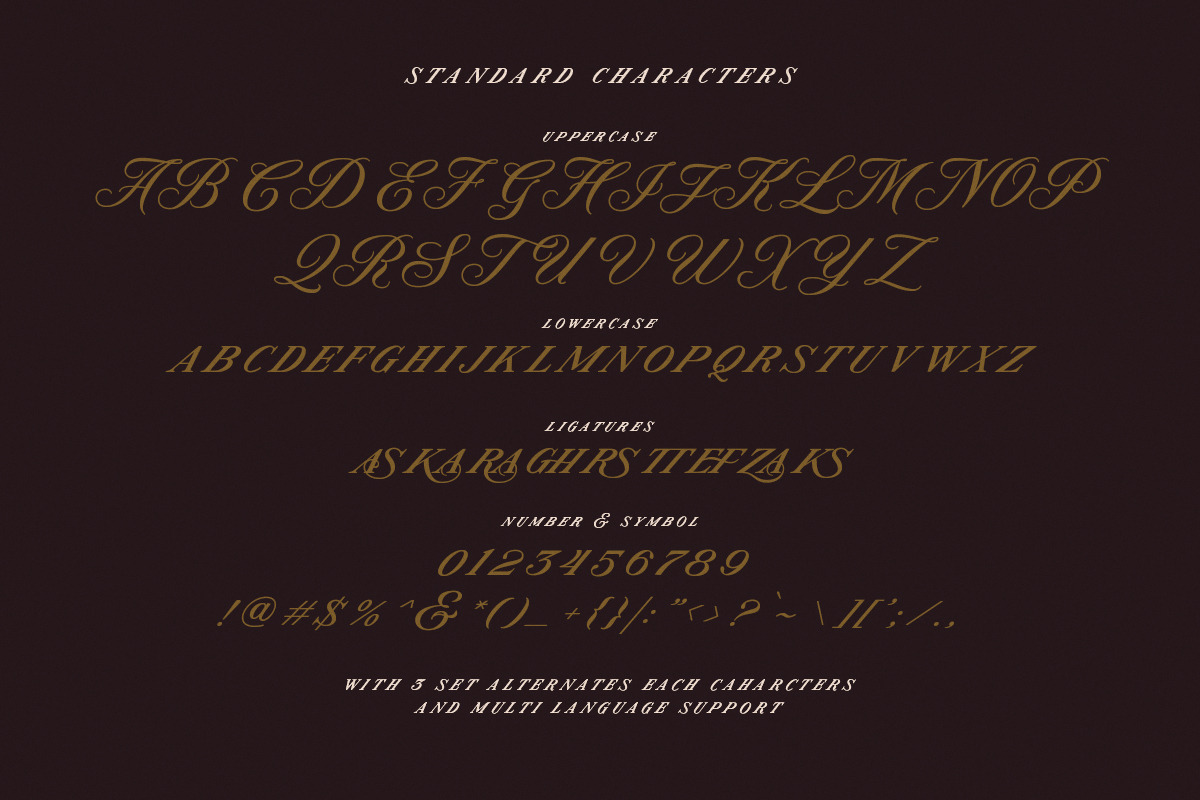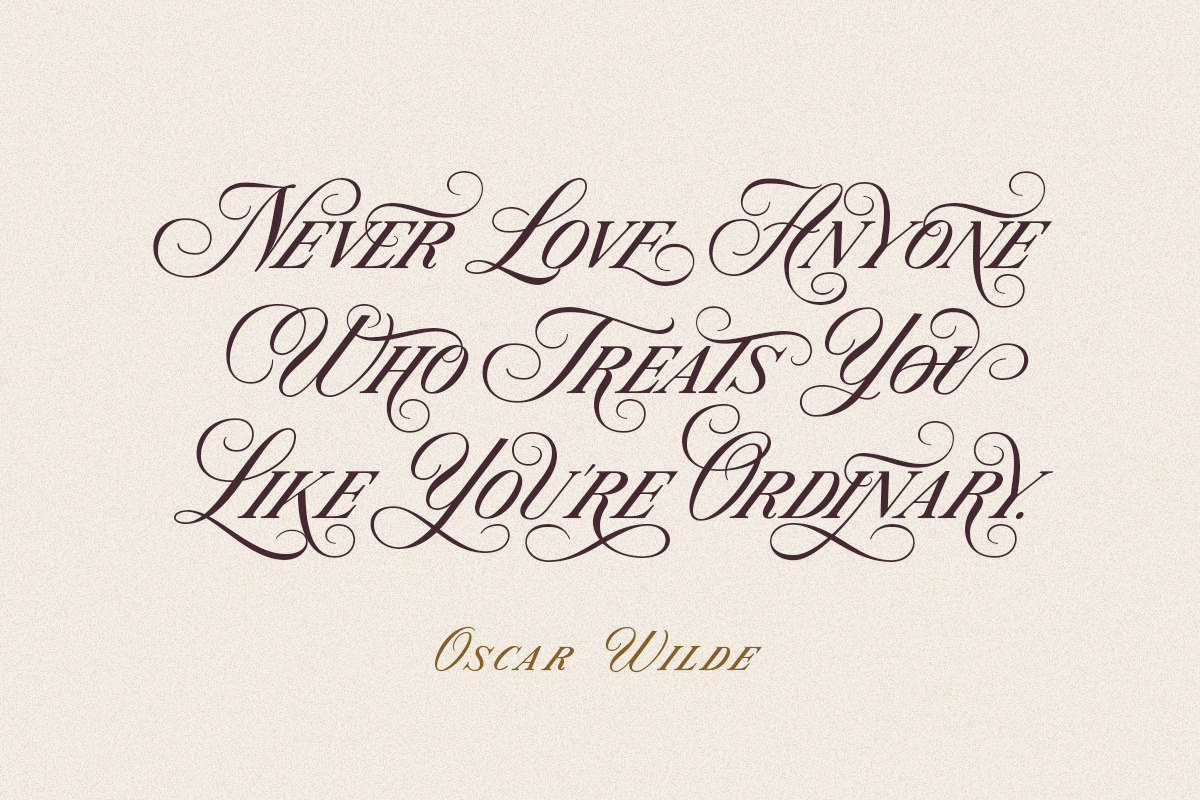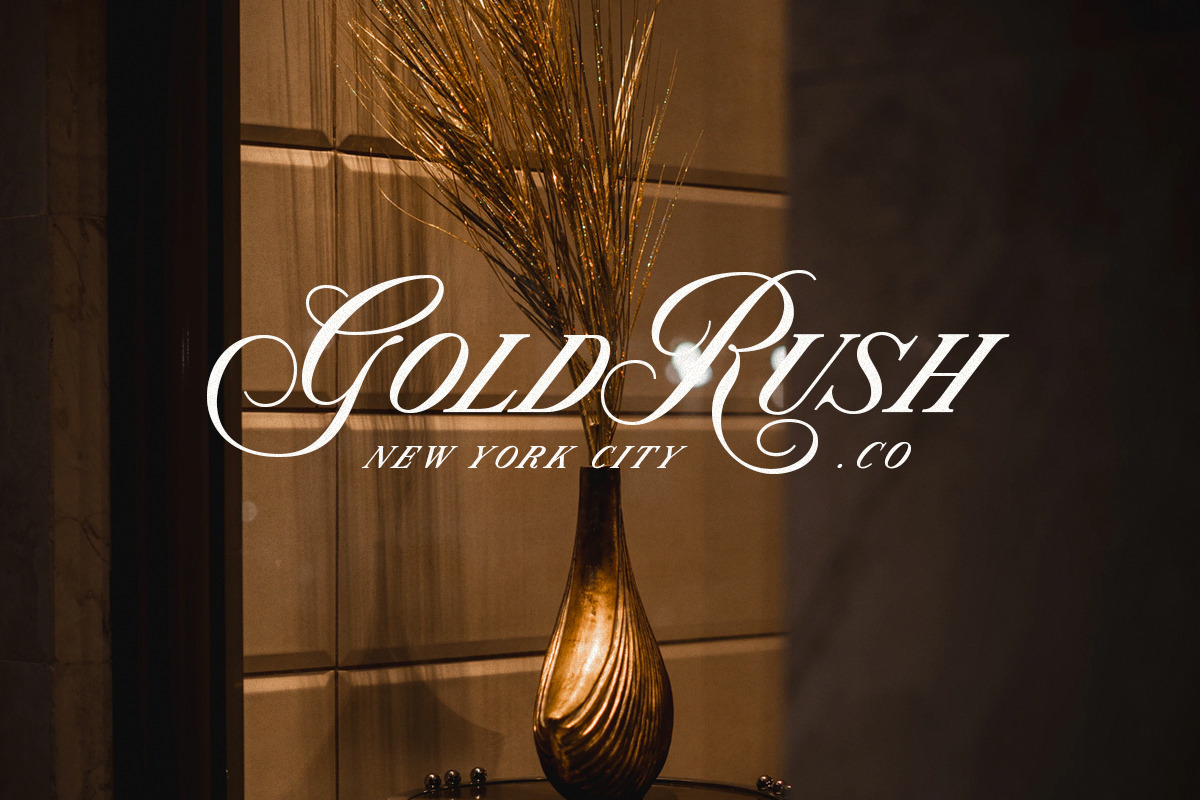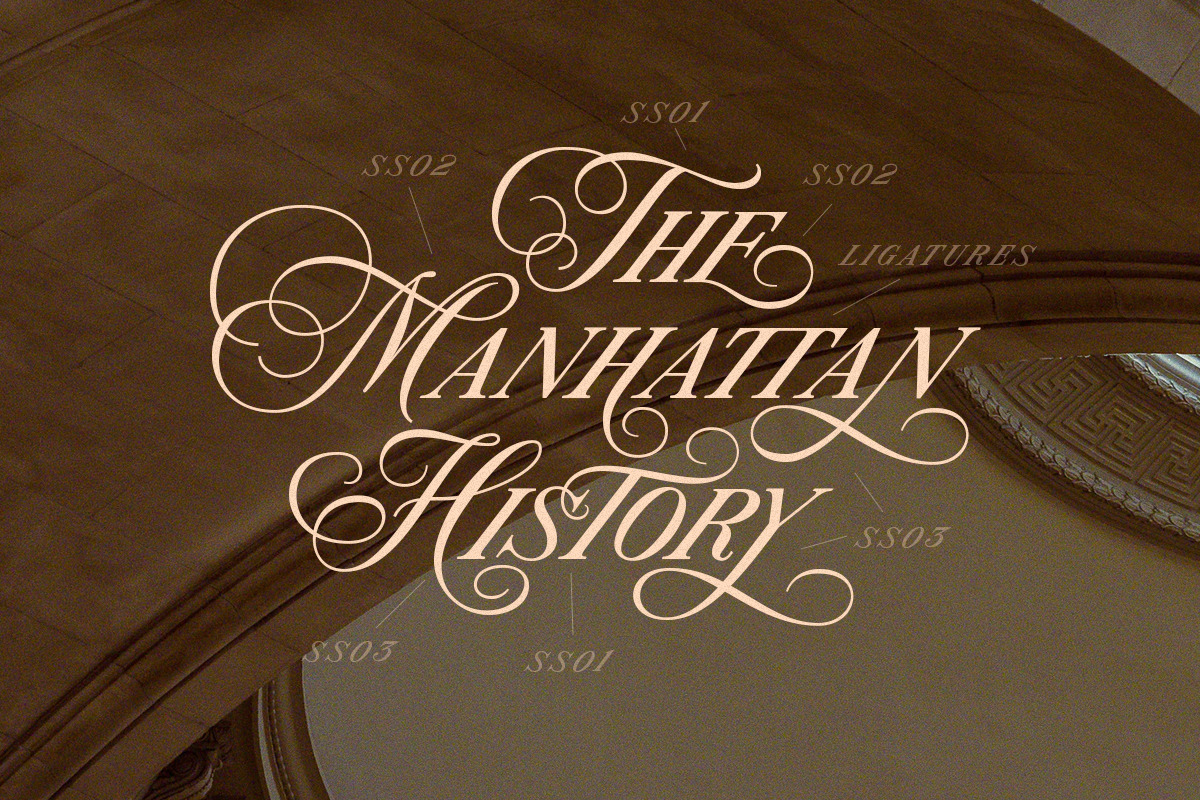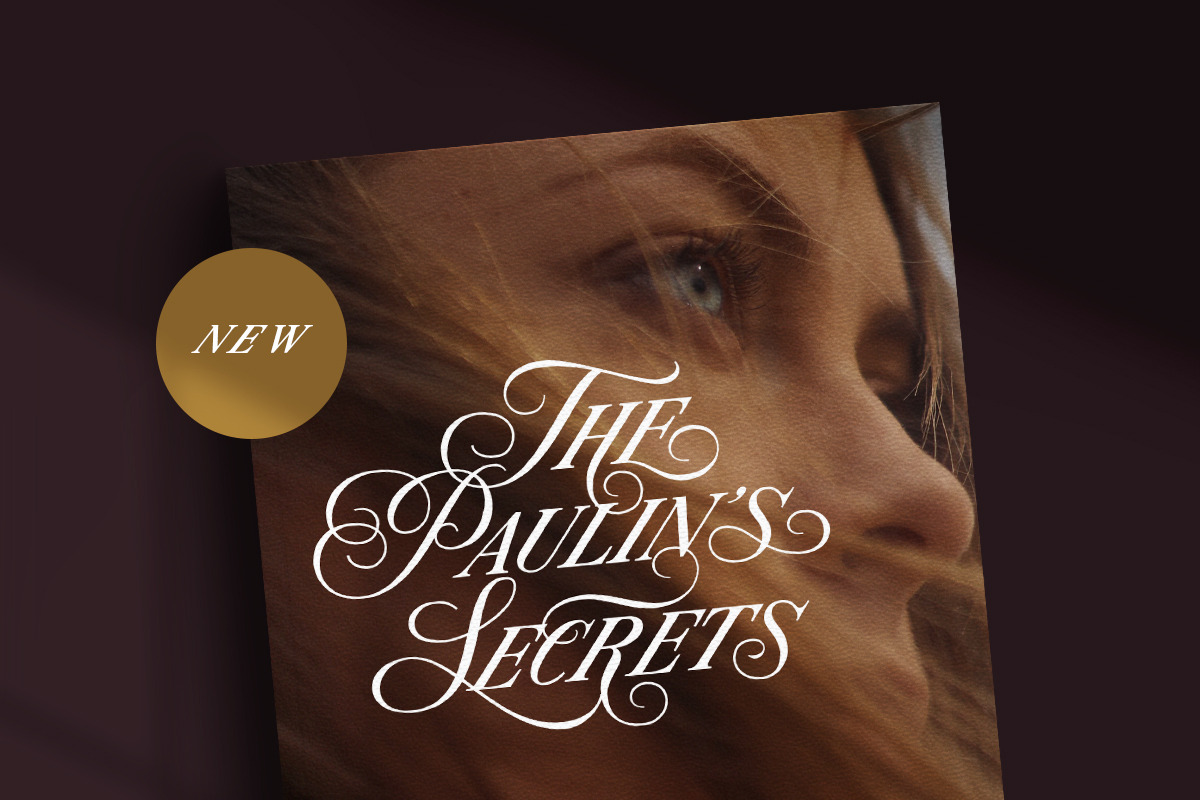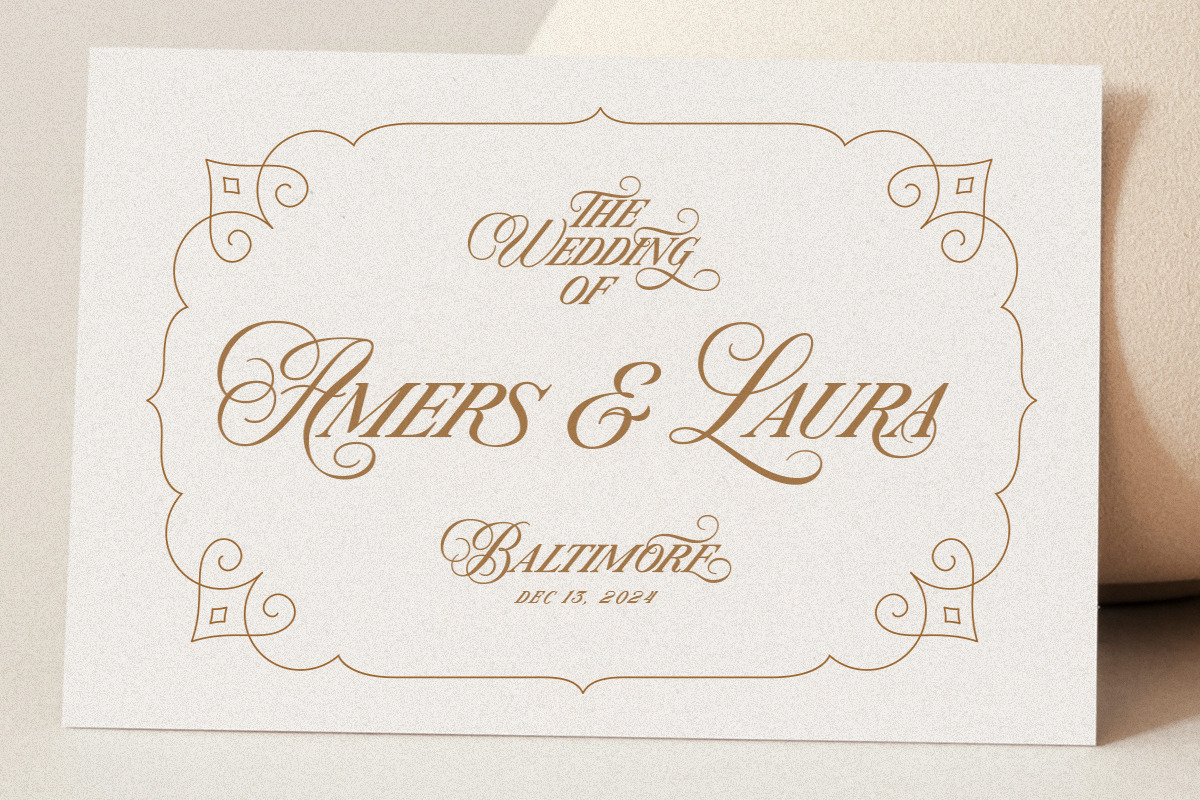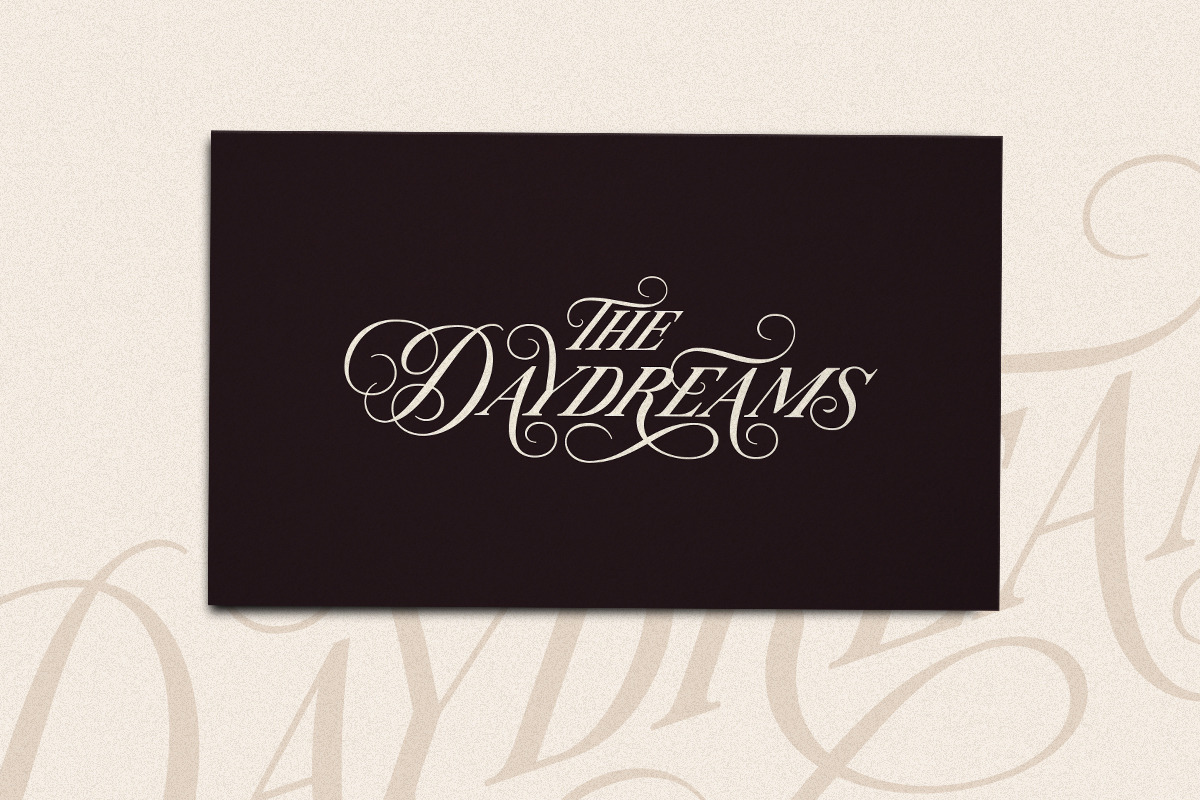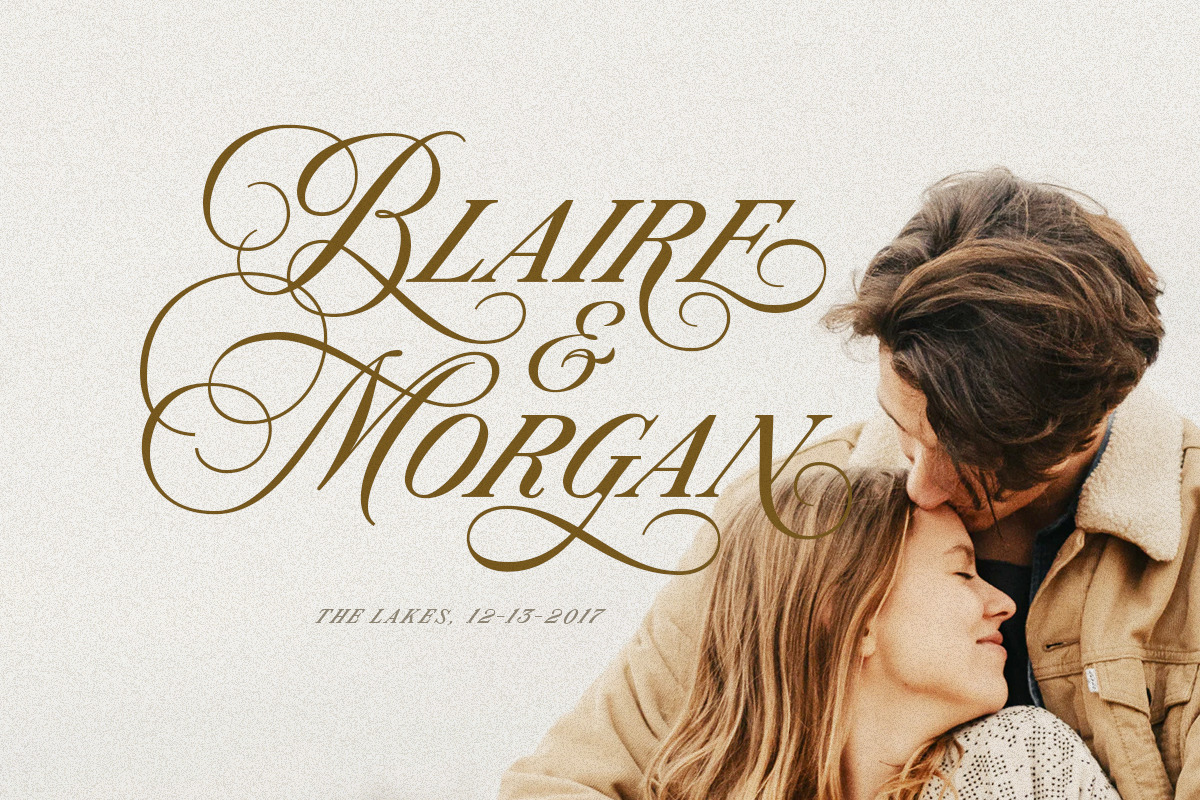
Modern Prestige - Romantic Serif
Modern Prestige is a unique serif which is combined with copperplate script letterform with all the swashes! This typeface has many alternates with swashes that can make your lettering / logotype become more interesting. The clean and neat of a serif combined with the swirl swashes makes this font one of a kind!
This font perfectly made to be applied especially in logo, and the other various formal forms such as invitations, labels, logos, magazines, books, greeting / wedding cards, packaging, fashion, make up, stationery, novels, labels or any type of advertising purpose.
- alternates
- swashes